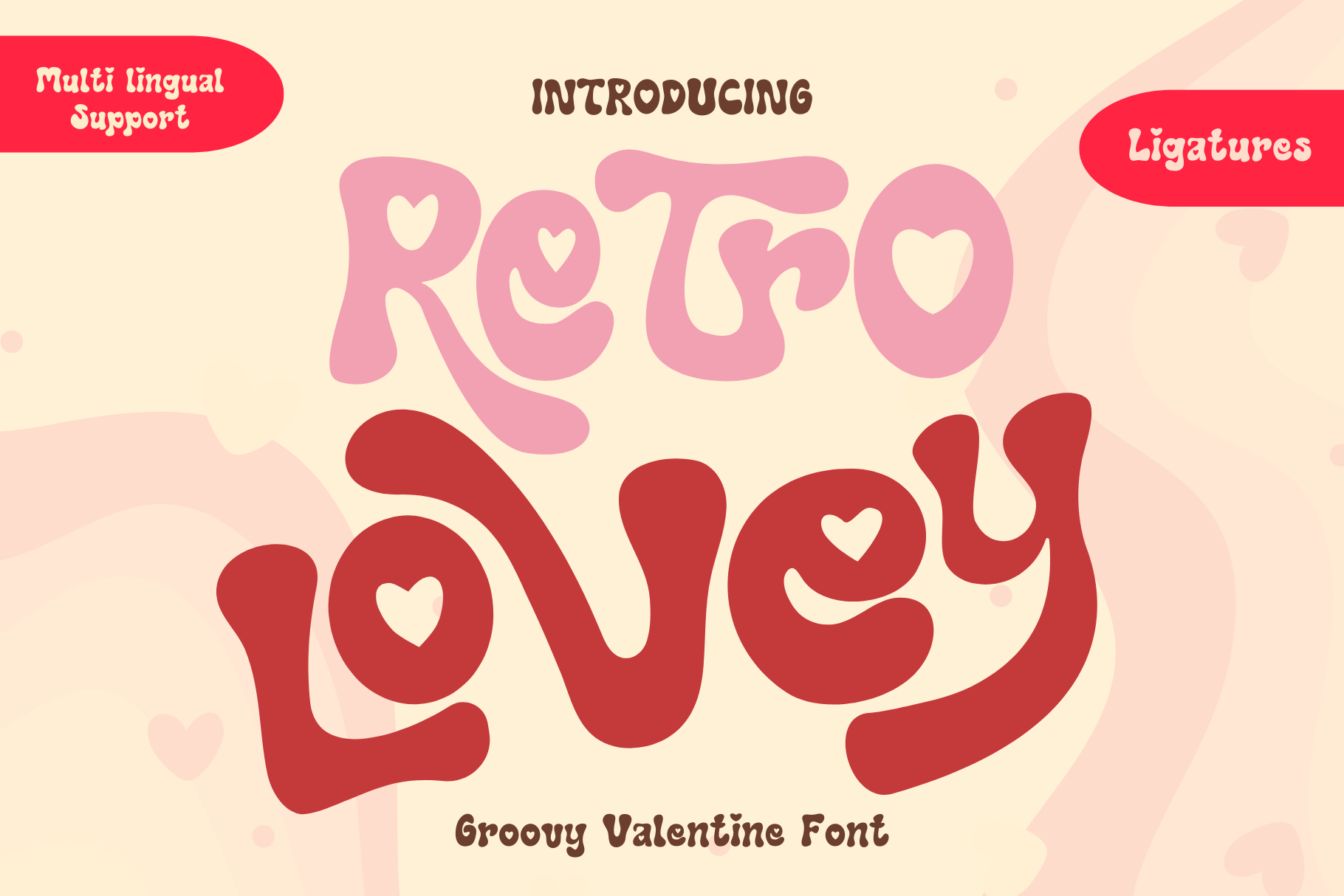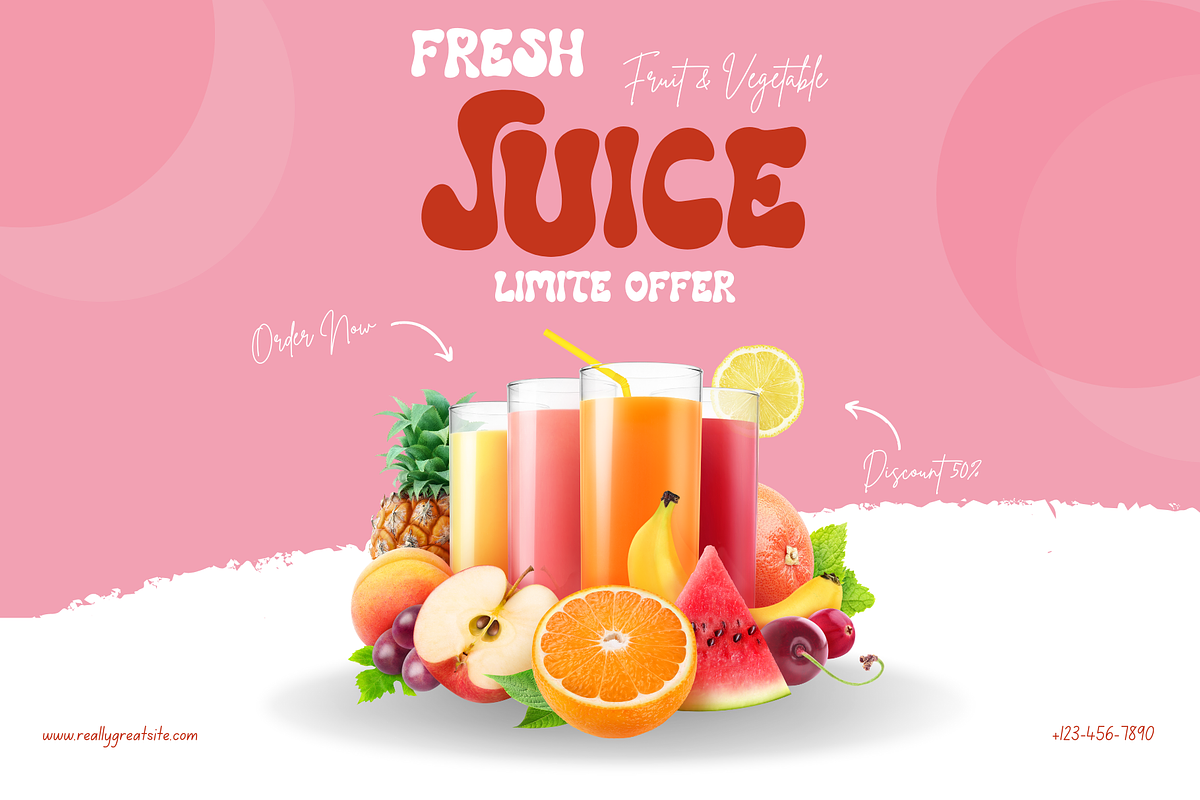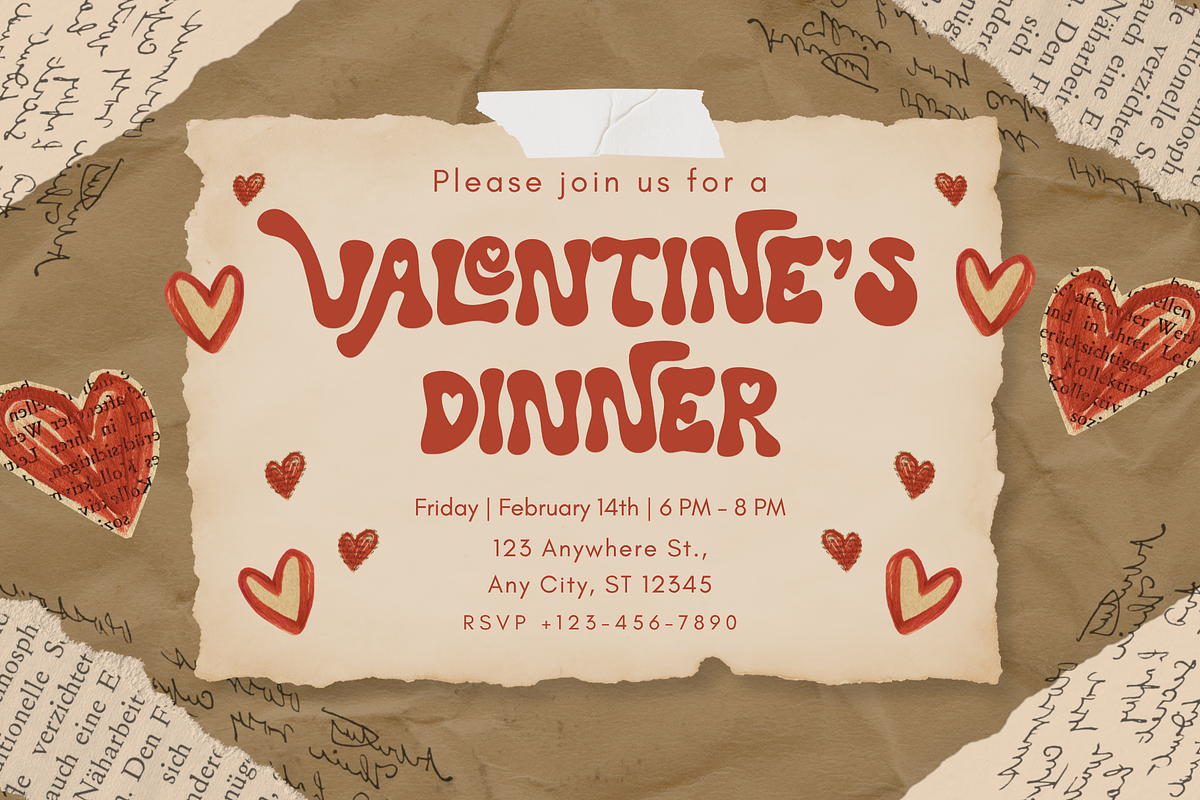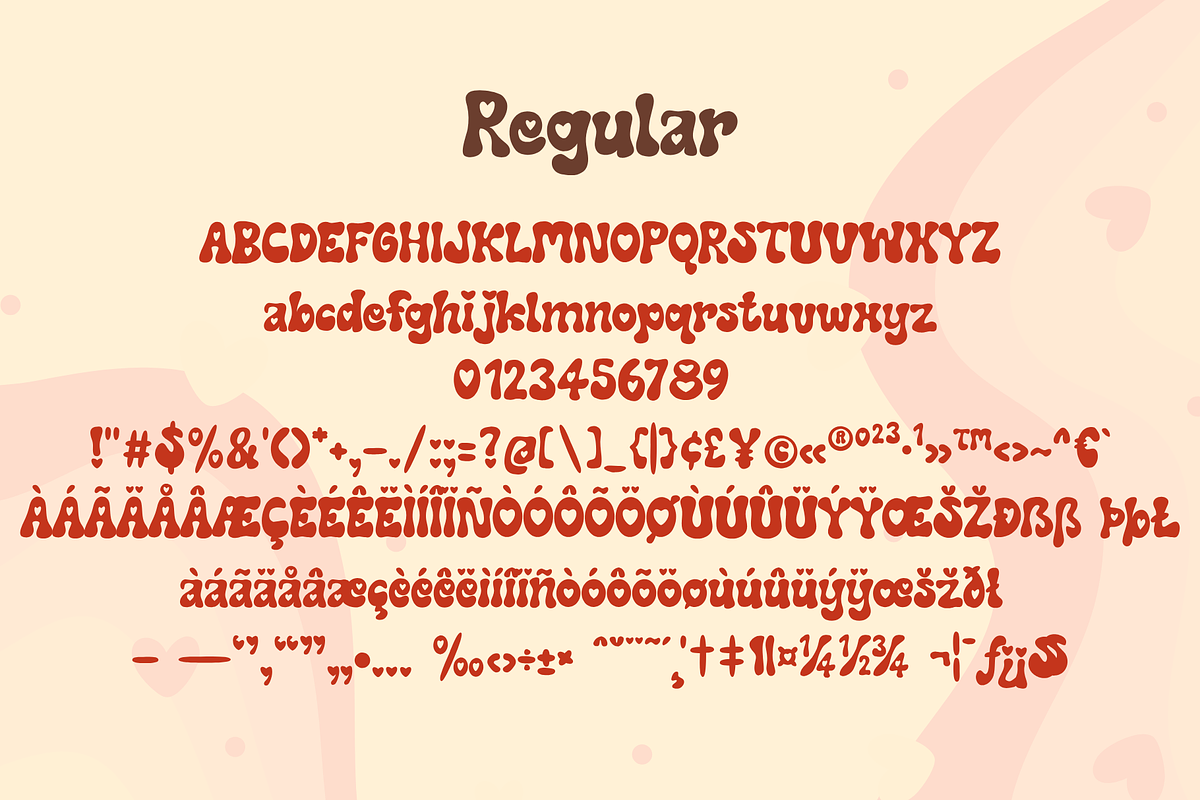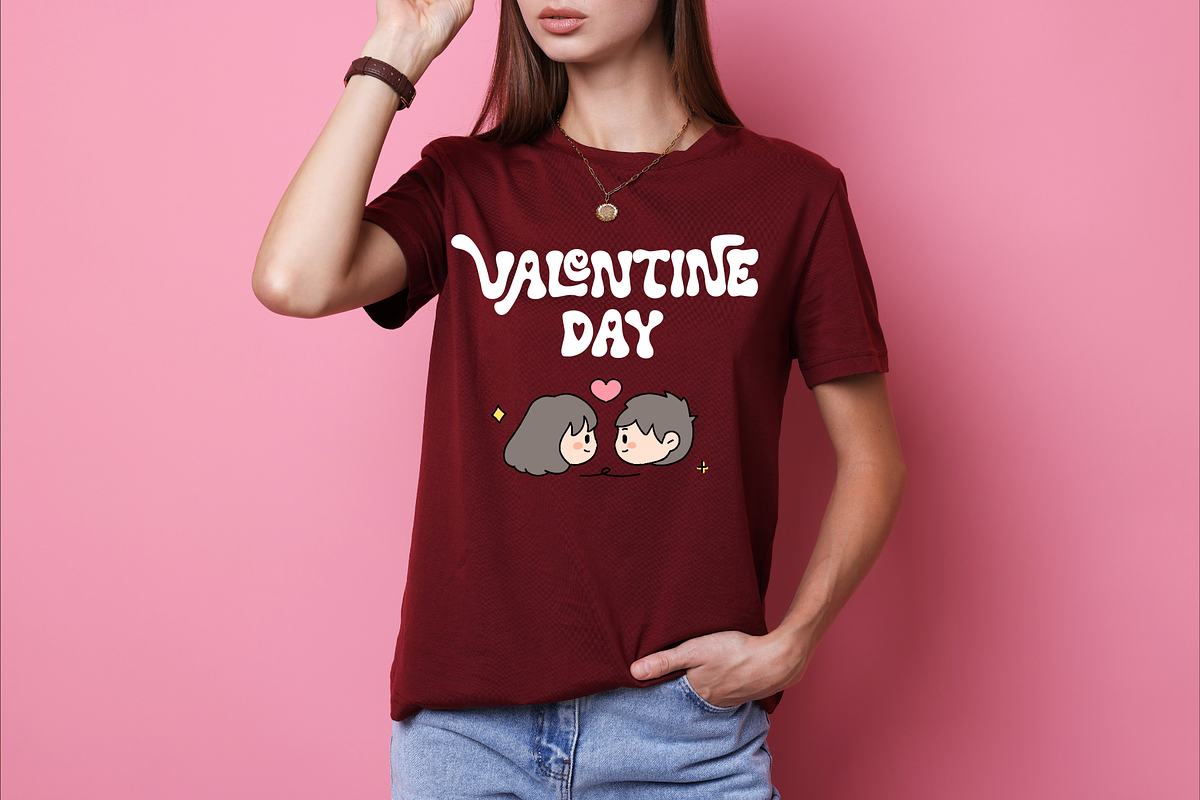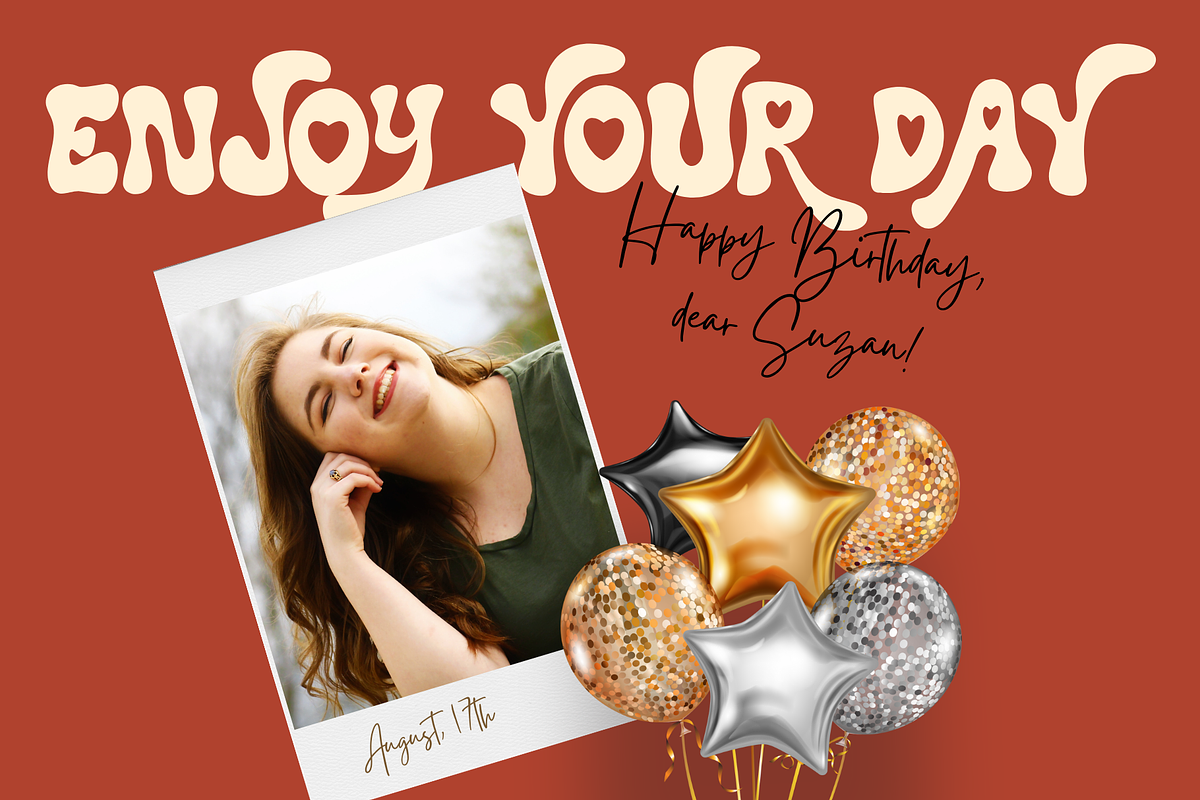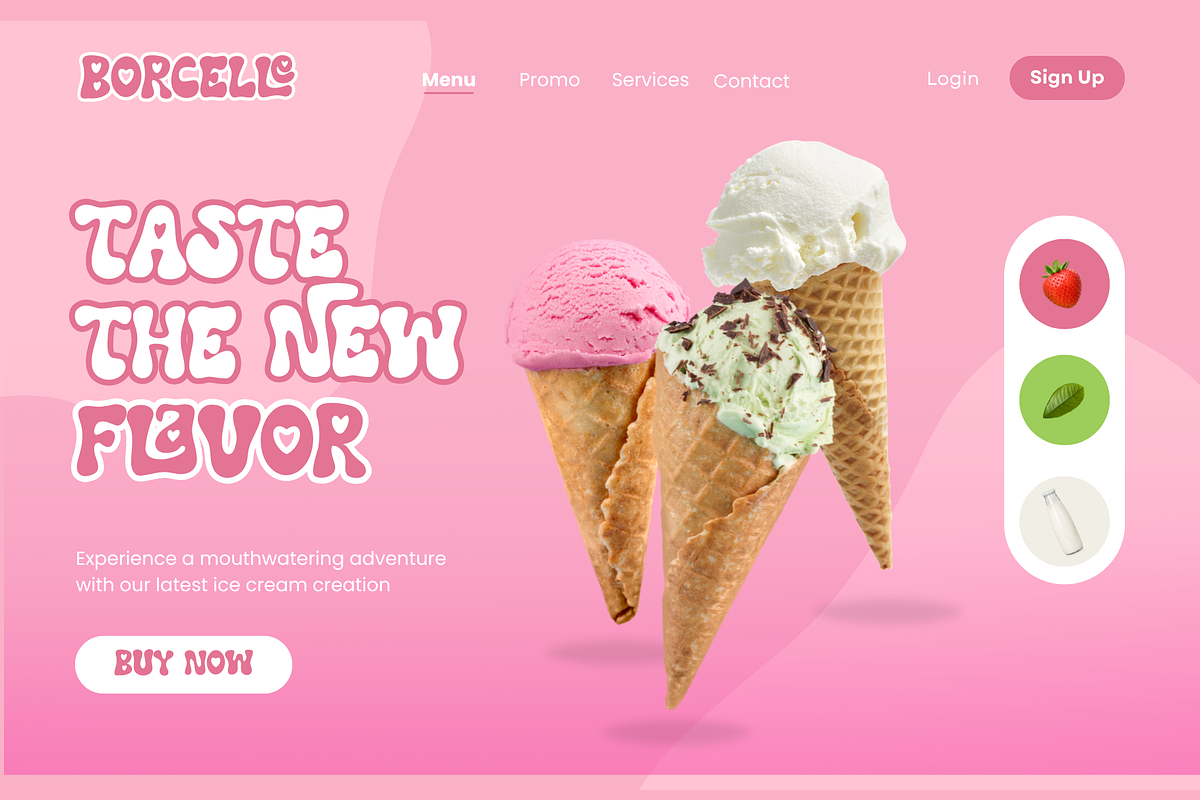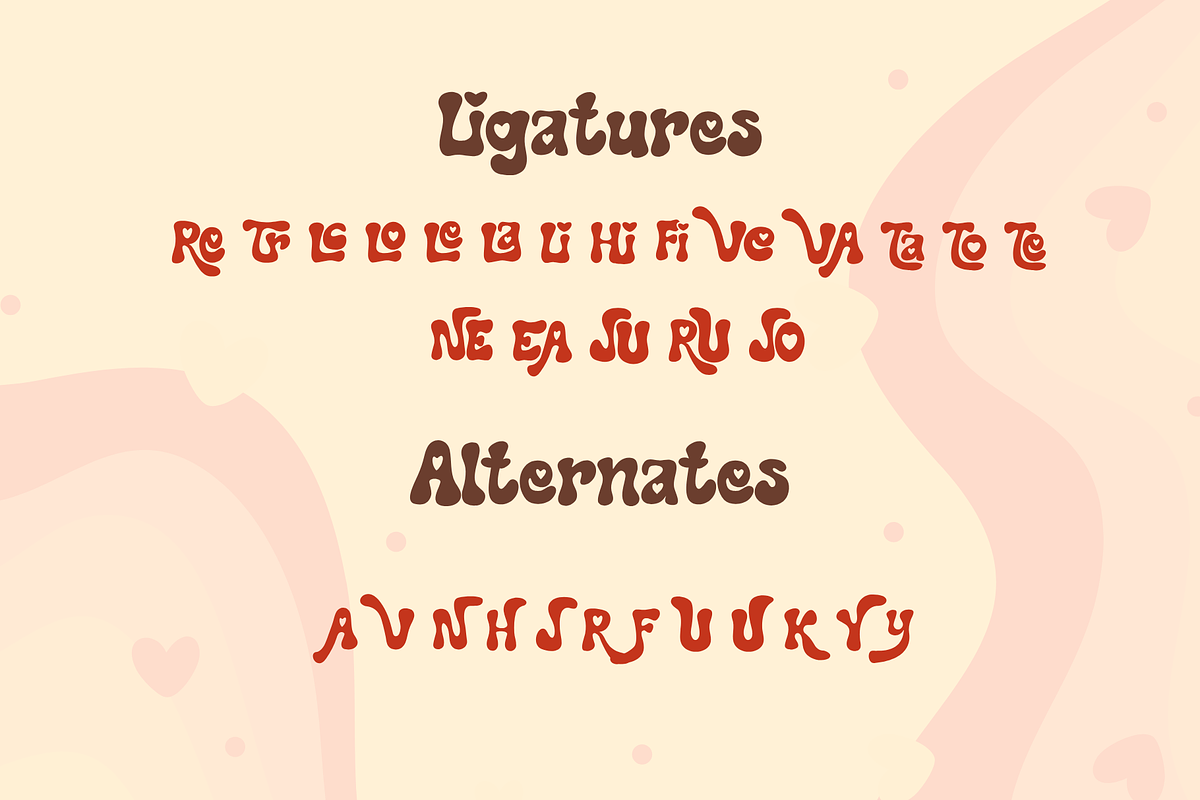
Retro Lovey - Valentine’s Day font
Retro Lovey is a Valentine’s Day display font. It embodies playfulness and authenticity and is the perfect choice for all your favorite projects, or even for blog posts, logos, branding, ads, invitations, greeting cards, planners, photo albums, decorations, and much more. Add it to any of your designs, and enjoy the results!